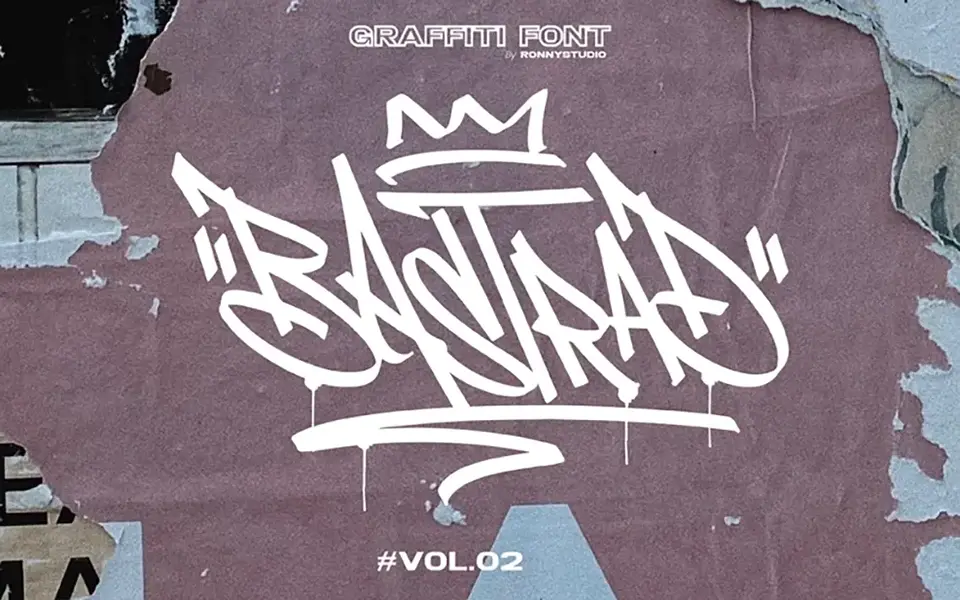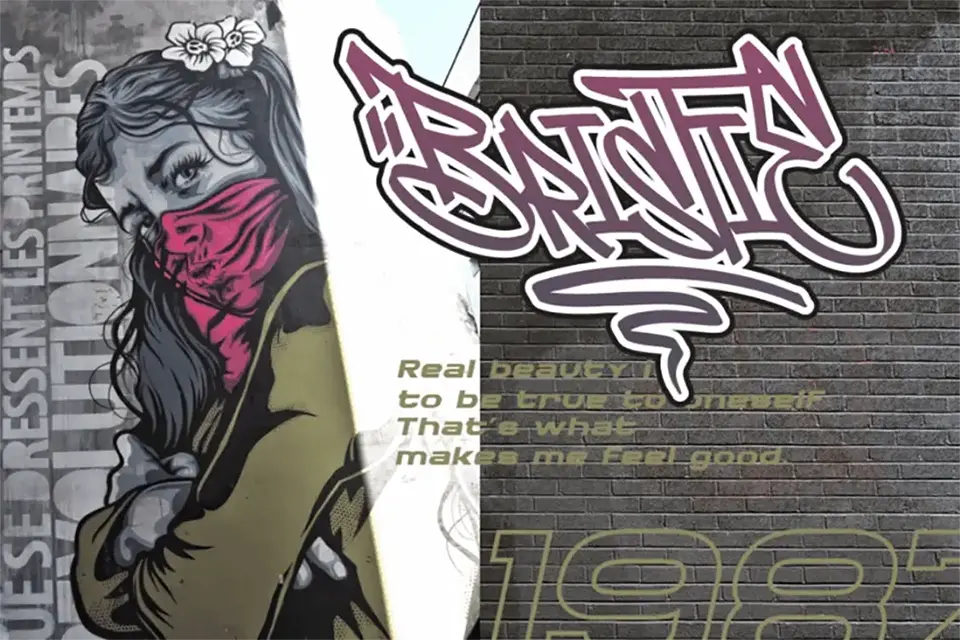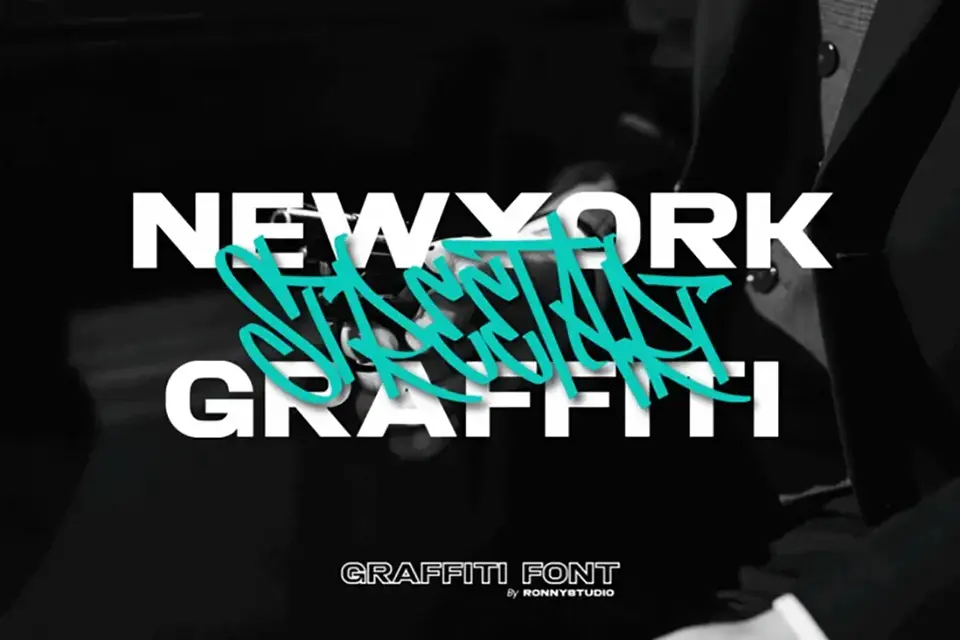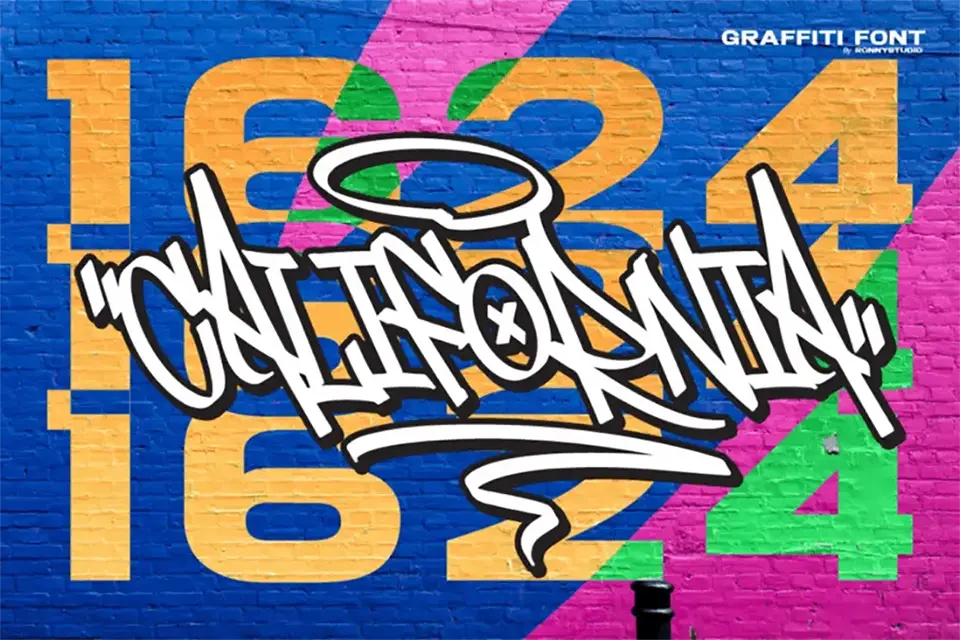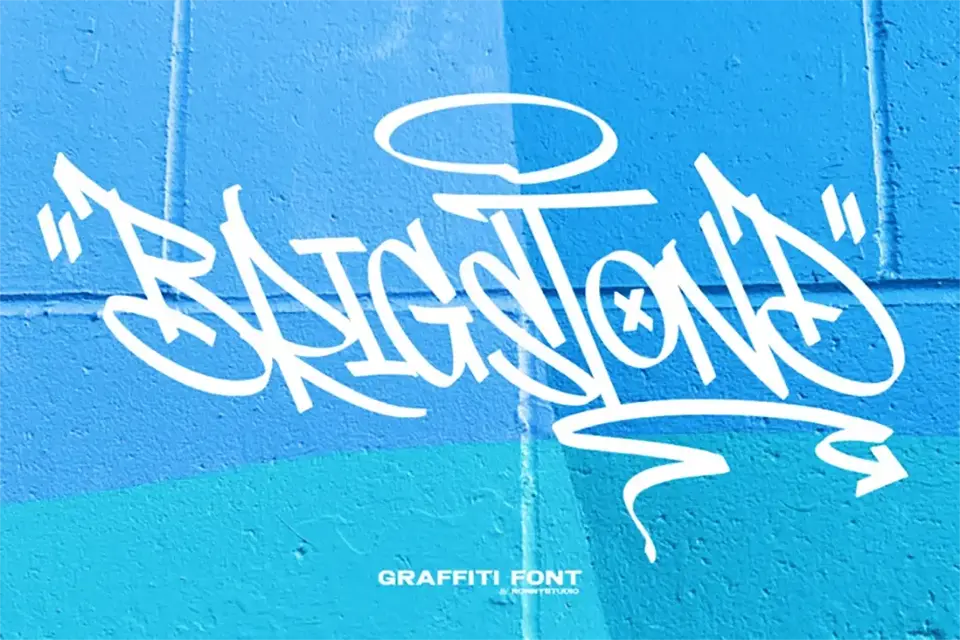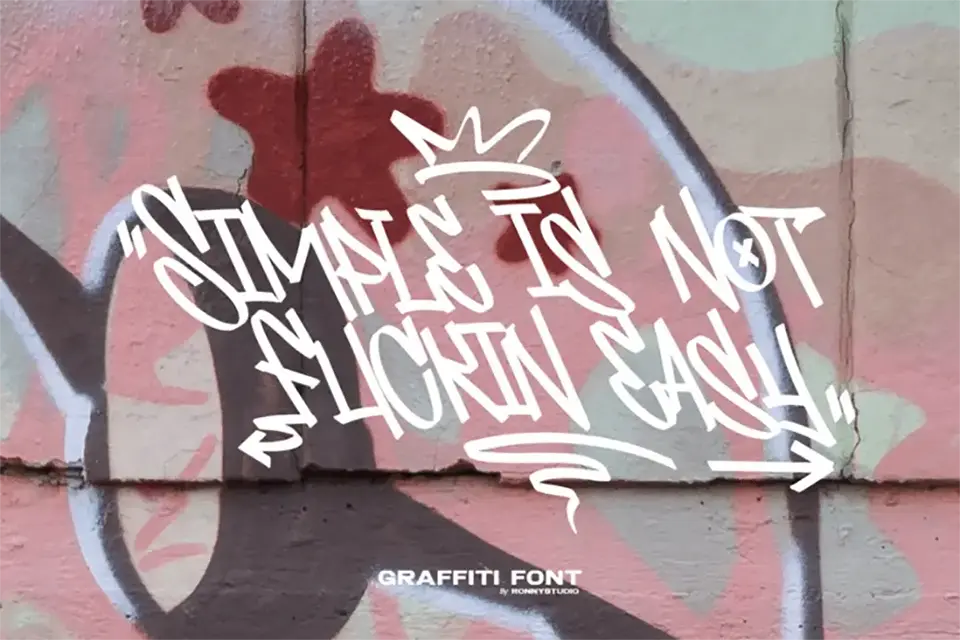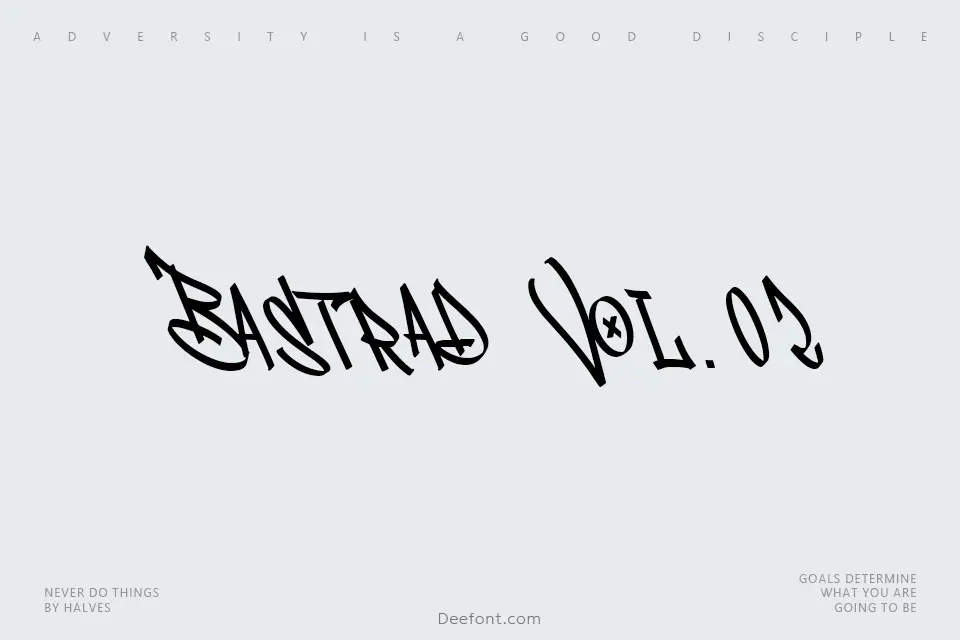
Bastrad Vol.02 Font
Bastrad Vol.02 is a striking script and graffiti-inspired typeface that brings contemporary urban energy to your design projects. With its bold, expressive letterforms, this font excels at creating eye-catching headlines, poster designs, and artistic typography. Perfect for brands seeking a distinctive, modern aesthetic, the font delivers personality and visual impact while maintaining readability across various applications.